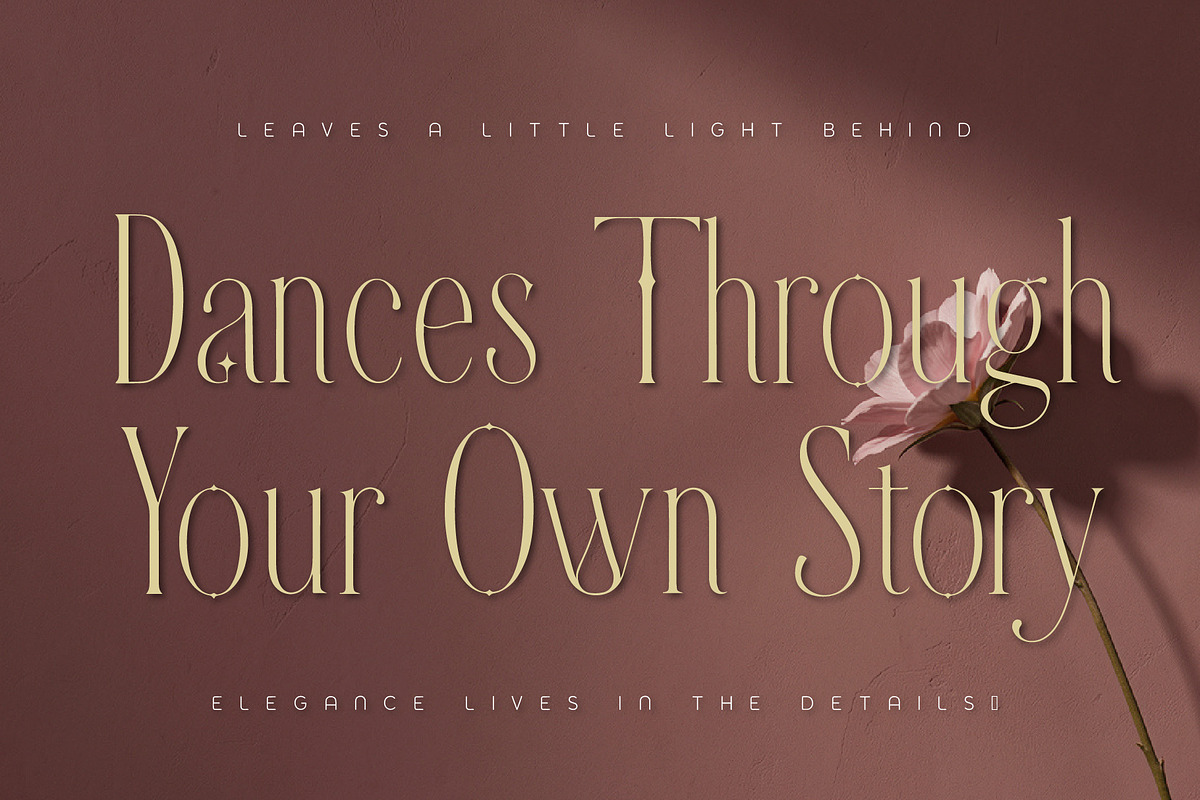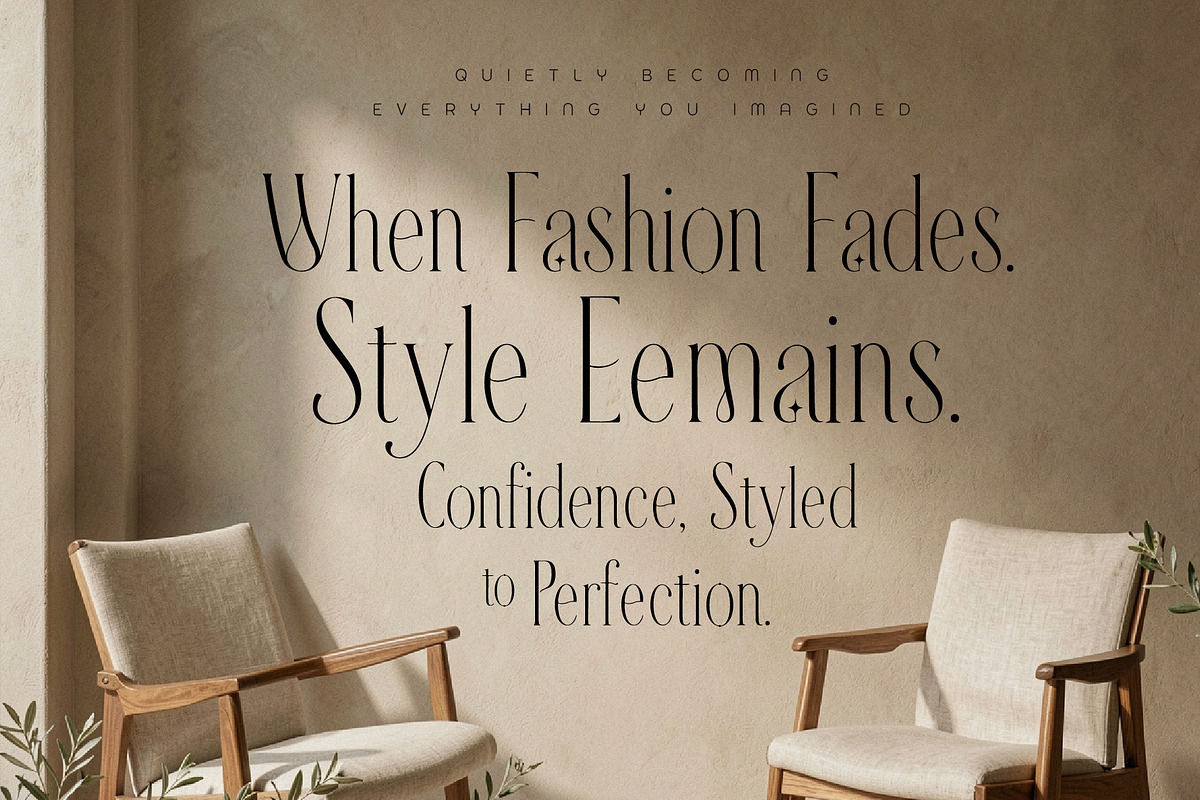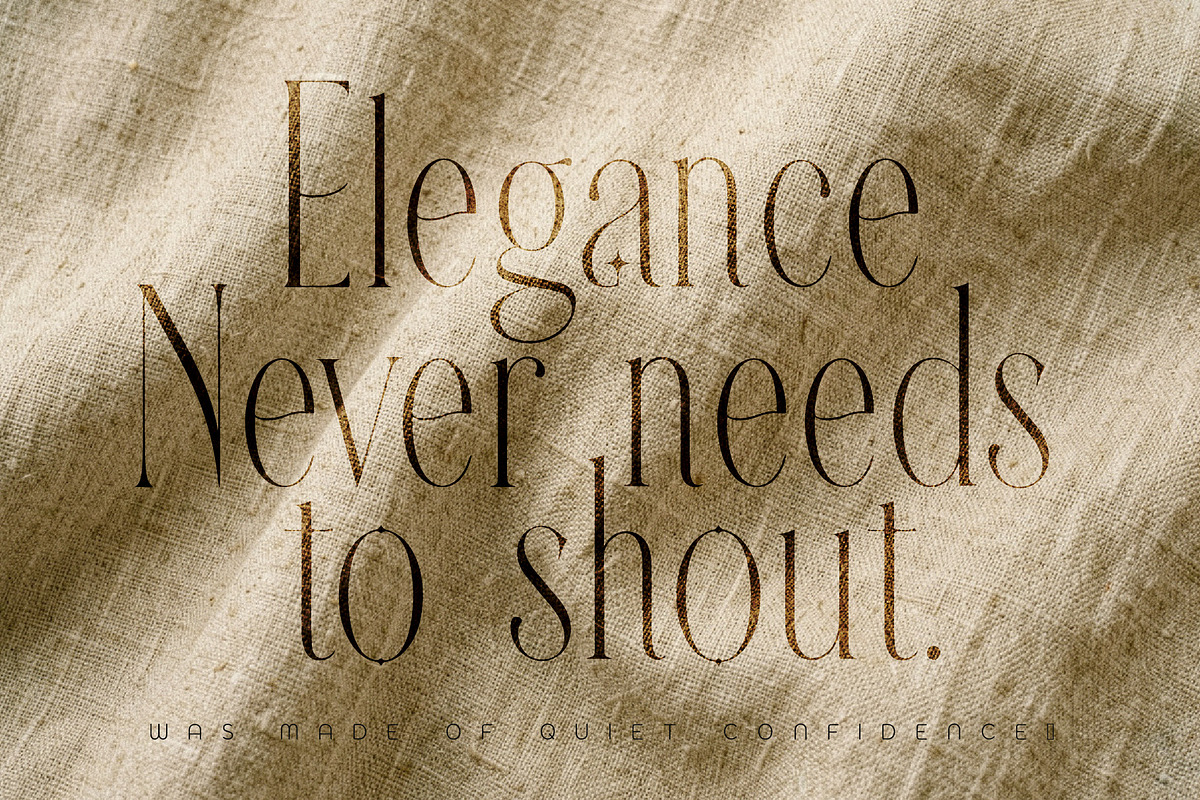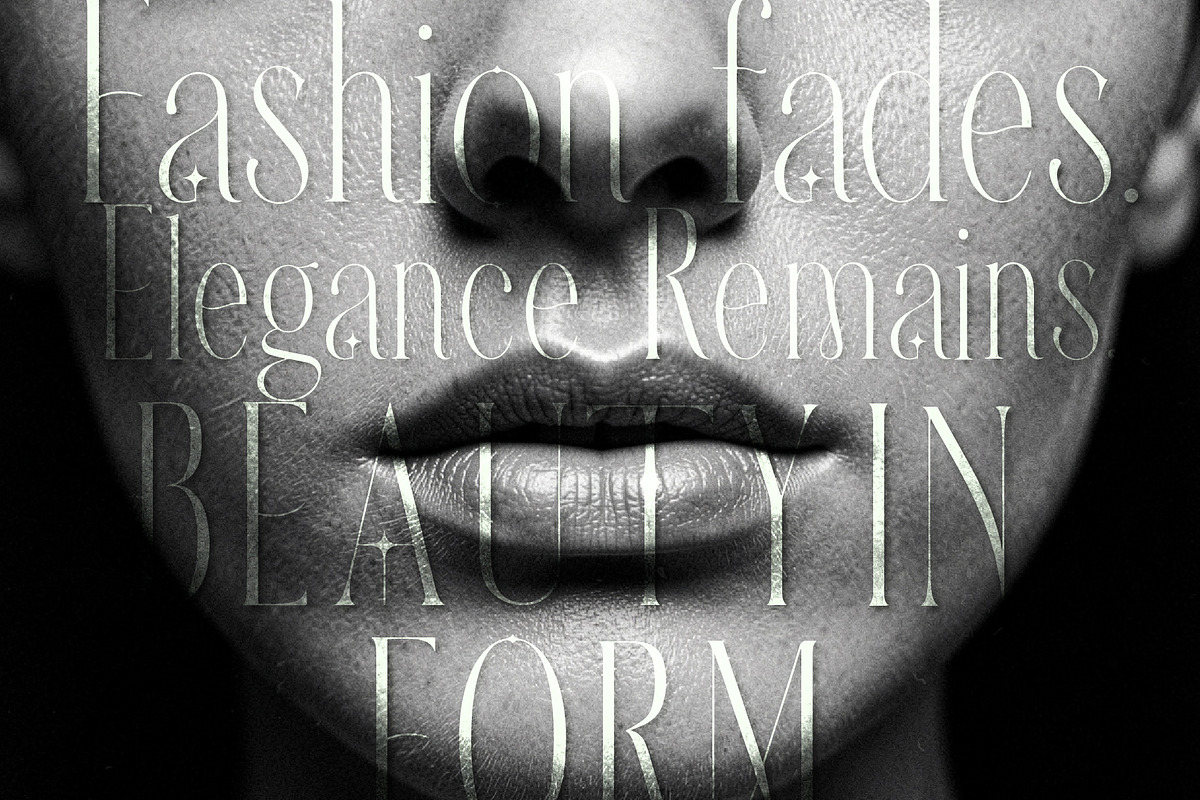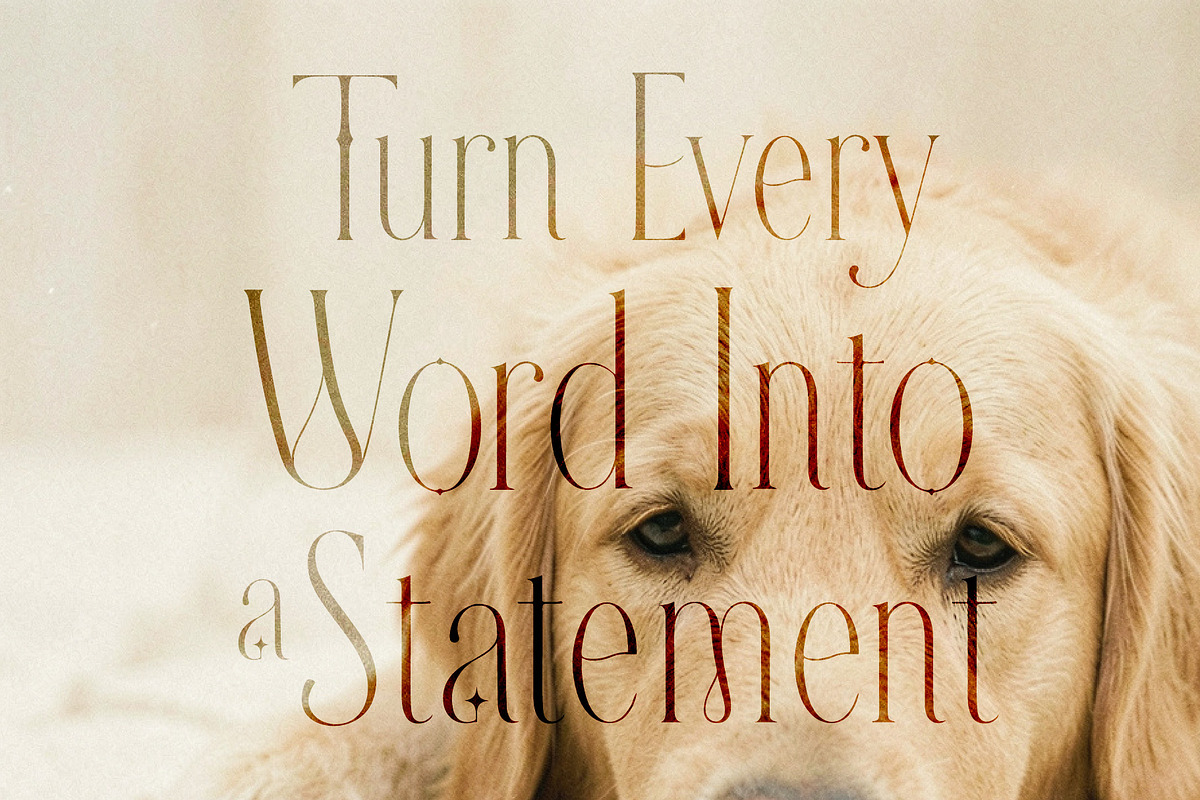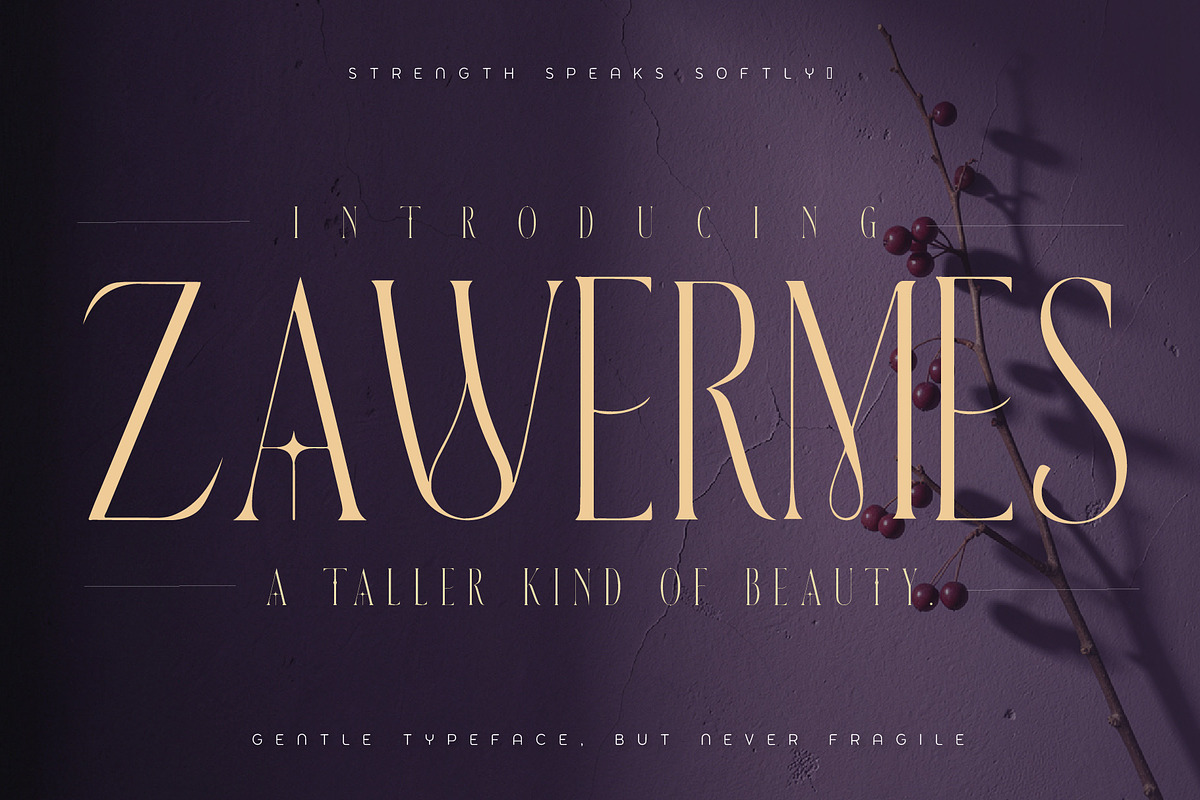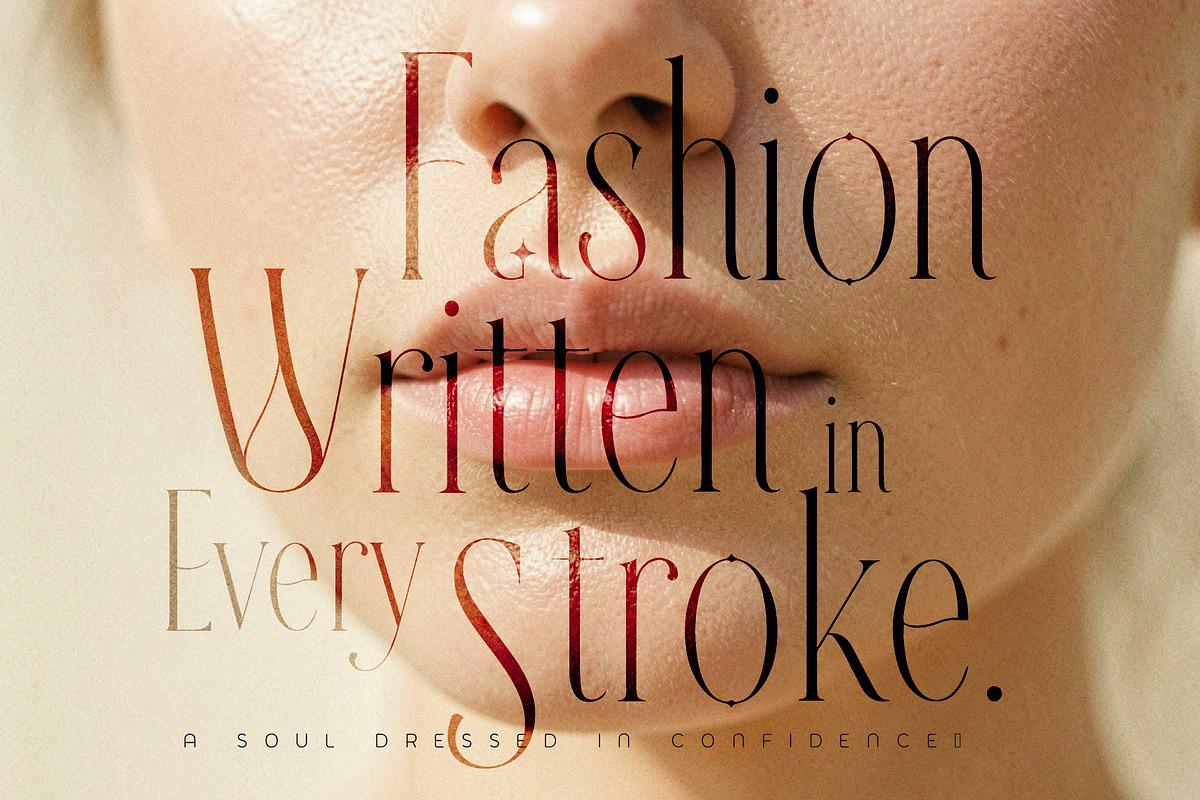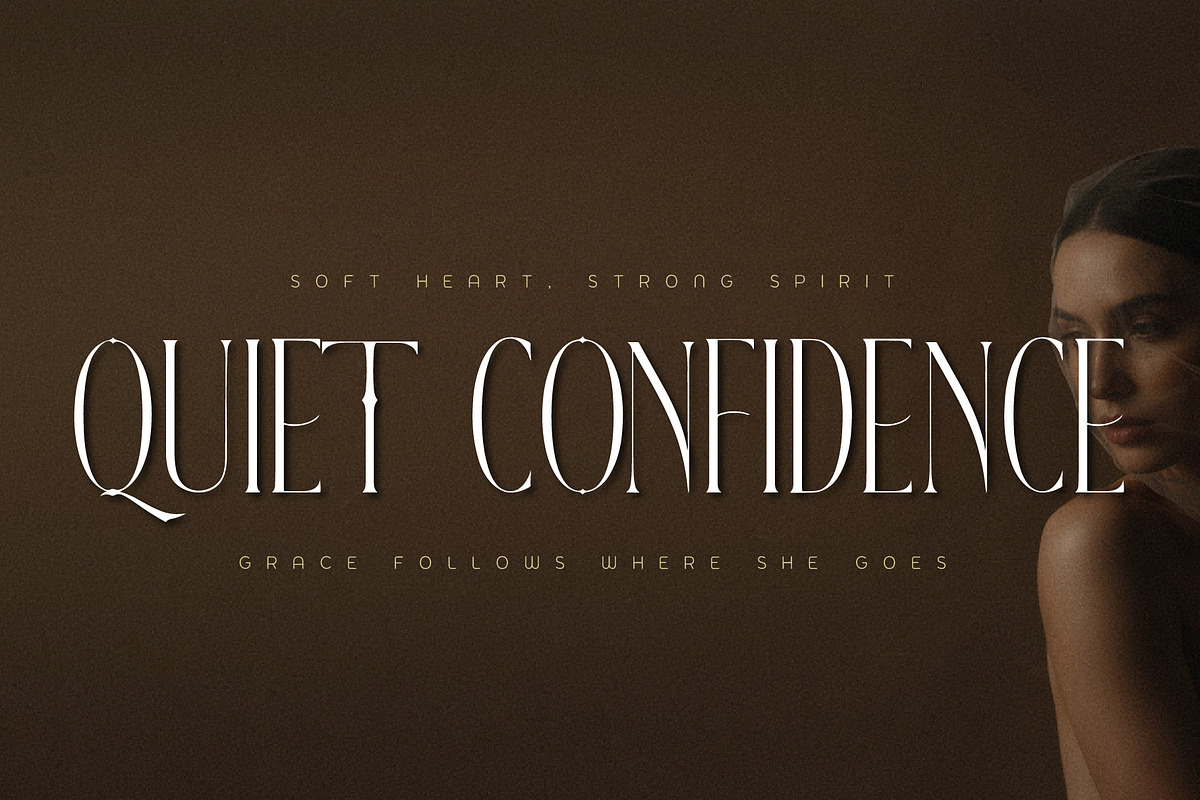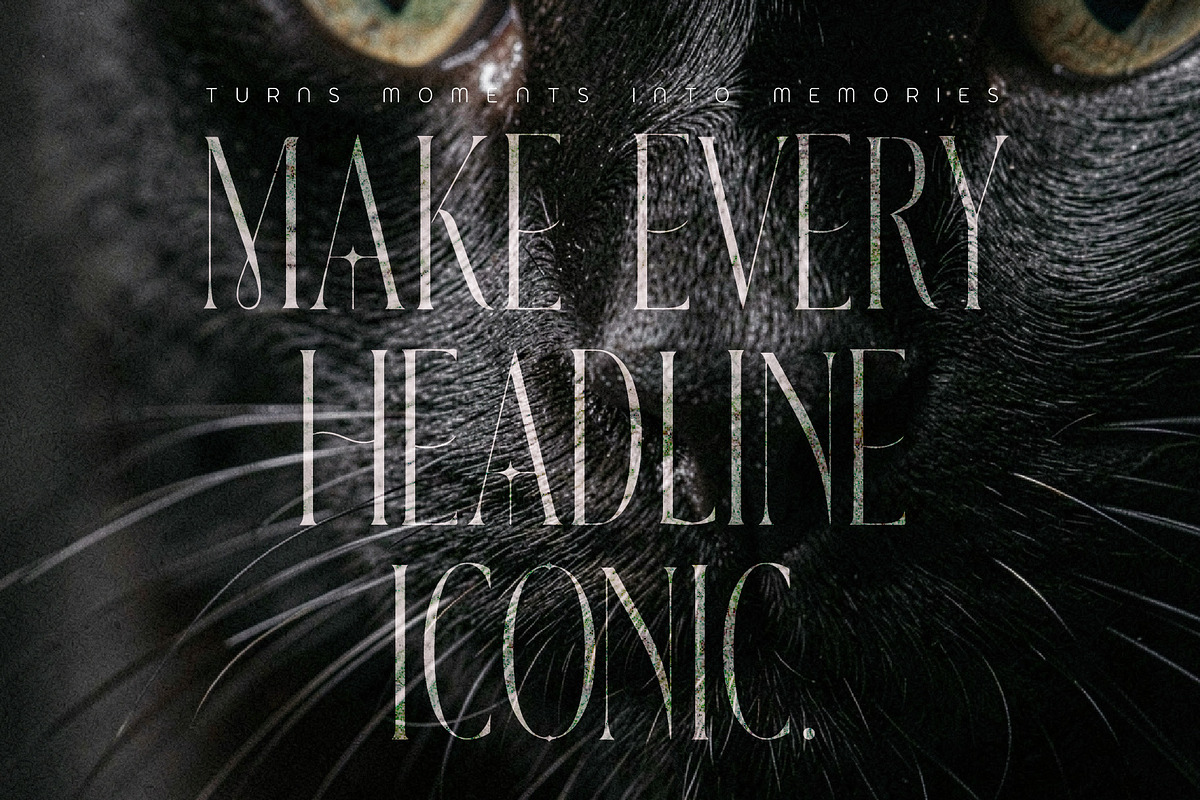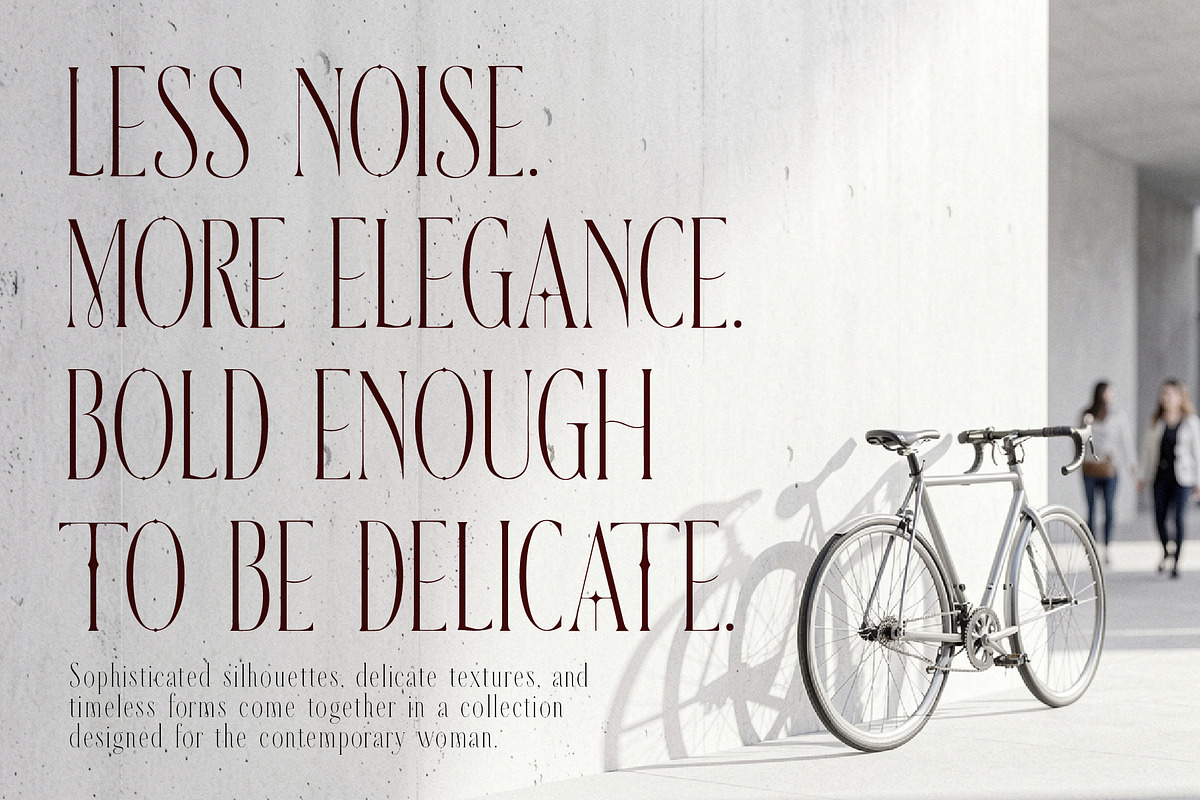
ZAWERMES - Thin Lines Elegance
Zawermes is an elegant feminine display font crafted for high fashion typography, luxury branding, beauty campaigns, and sophisticated editorial designs.
With its dramatically elongated proportions, delicate hairlines, and striking high-contrast strokes, Zawermes creates an instantly recognizable fashion-forward presence. Its tall silhouette gives headlines a refined, graceful rhythm while maintaining a bold visual impact.
Perfect for magazine covers, fashion editorials, beauty packaging, perfume branding, luxury logos, posters, invitations, social media graphics, and stylish advertising campaigns.
Use Zawermes when your design needs to feel elegant, feminine, glamorous, sophisticated, and unmistakably editorial.
Fashion magazines & editorial covers
Beauty & skincare branding
Perfume & cosmetics
Luxury logos & monograms
Fashion campaigns
Boutique branding
Posters & advertisements
Editorial layouts
Invitations & stationery
Social media fashion graphics